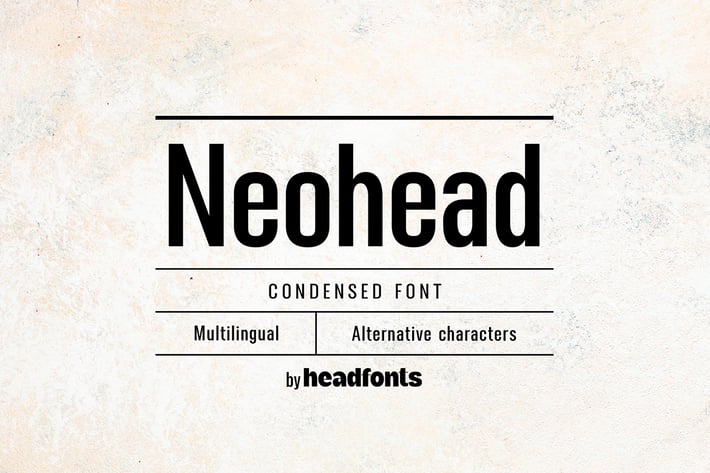
Neohead condensed sans serif font
NEOHEAD is a modern, minimalist condensed font with a neutral design and subtle decorative elements. Neohead features sans serif characters, perfectly balanced in terms of spacing to be functional and readable in small or large sizes. Its condensed proportions are designed to be efficient, space-saving but at the same time, clean and legible as titles and also as body text. Neohead has uppercase and lowercase characters, 249 glyphs, alternative glyph for letter "a" and extensive Latin script language support. With a smart, confident and simple appearance, Neohead it will be useful for many applications. From layouts, branding, web design, editorials to apps, this font will help you to create friendly but professional looking designs.
- Extensive Latin script language support
- Upper and lowercase font